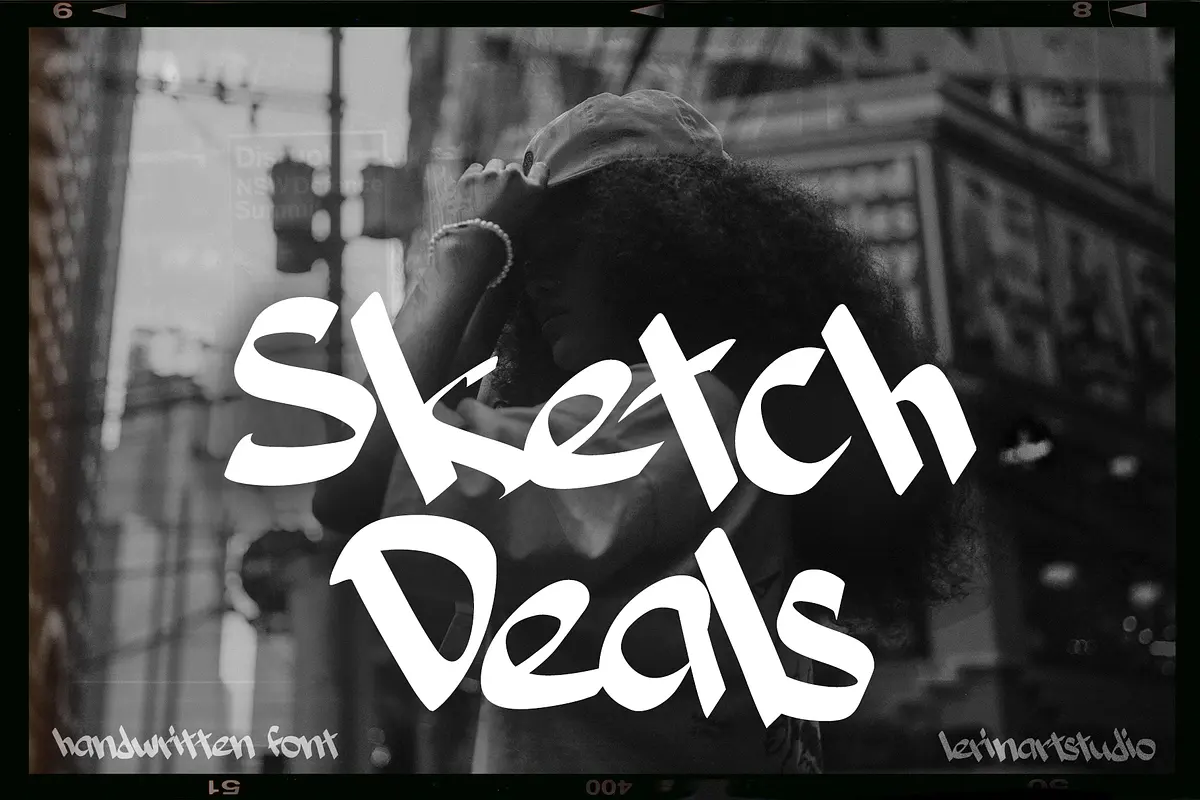
Sketch Deals – Street Handwritten Font Free Download is a bold and expressive typeface that brings the raw, authentic feel of street art to your designs. With its rough, sketched letterforms and graffiti-inspired style, this font is perfect for urban branding, streetwear designs, posters, music album covers, and social media content that requires an edgy, rebellious vibe.
The uneven strokes and hand-drawn character of Sketch Deals give it a personalized, energetic look that stands out in any layout. Whether you're designing for the skate culture, music scenes, or indie brands, this font adds authenticity and a touch of urban flair.